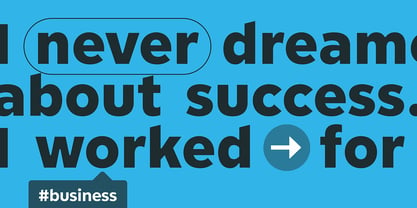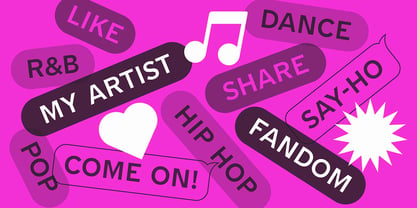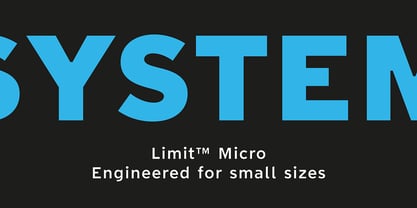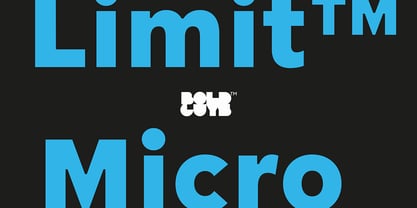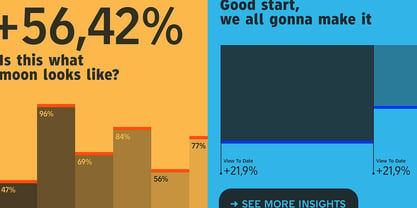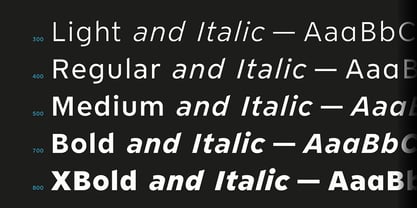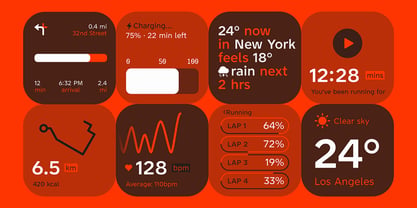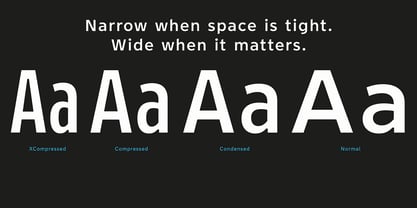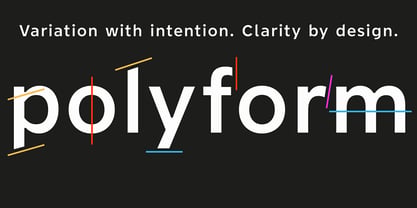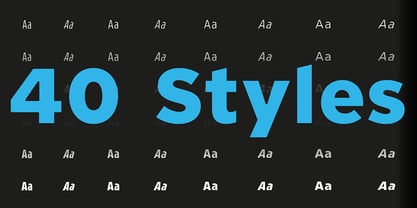
Limit Micro
by Bold Guys™
The Limit Micro Font Family was designed by Jörg Hemker and published by Bold Guys™. Limit Micro contains 40 styles and family package options. More about this family
Limit™ Micro is engineered for precision at the smallest sizes. Reinforced forms, simplified shapes, and carefully adjusted spacing preserve clarity where every pixel matters. Purpose-built weights are calibrated for screen and print, ensuring stable rhythm in footnotes, captions, labels, maps, and dense data. Designed to withstand low resolution and tight spacing, it delivers consistent legibility and structural reliability under extreme constraints.
Designers: Jörg Hemker
Foundry: Bold Guys™